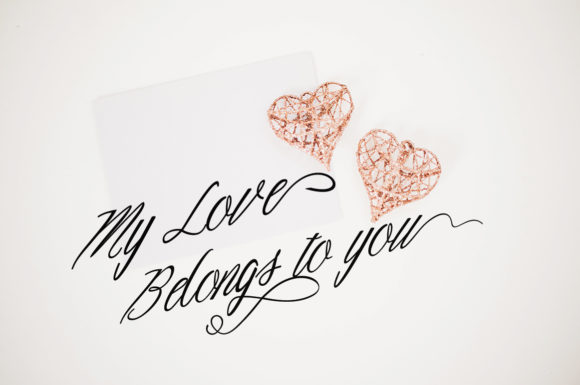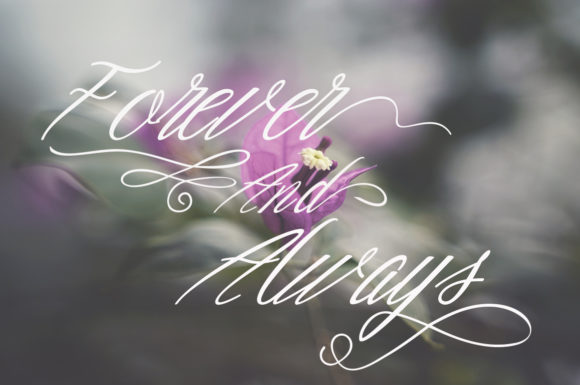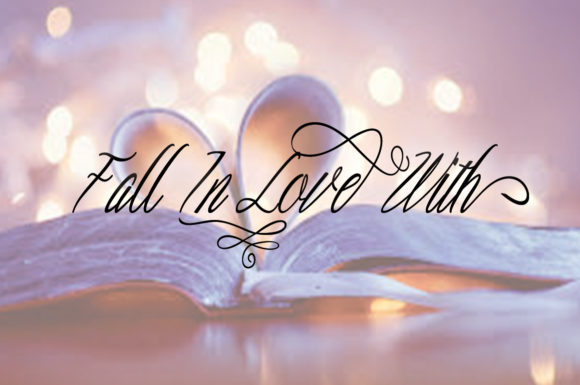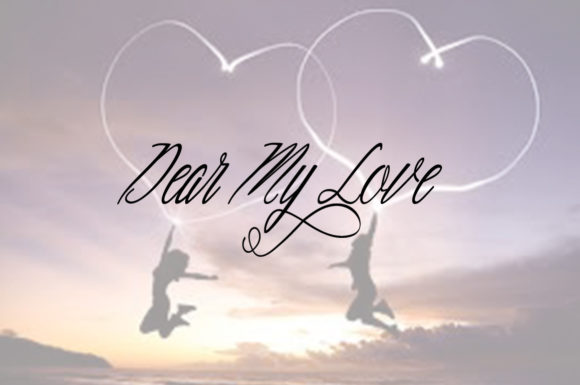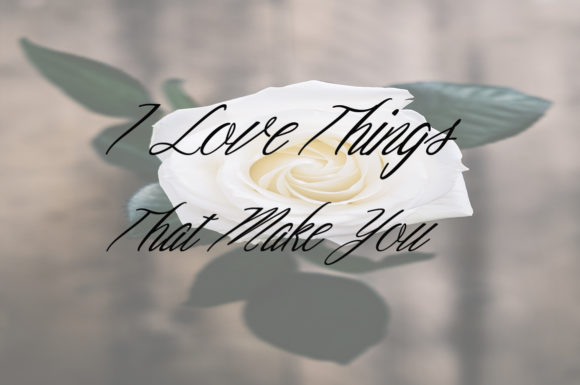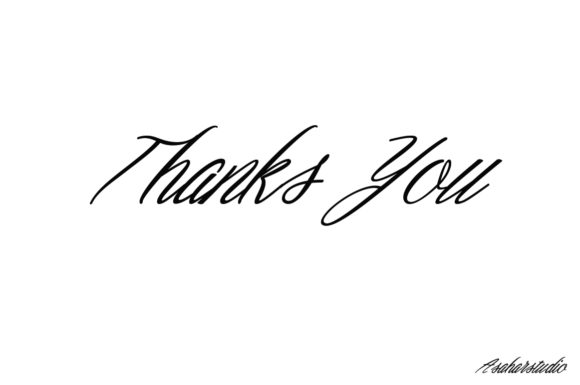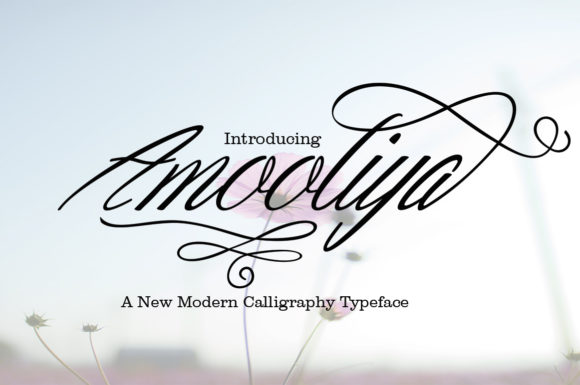
Amooliya Font: Elevate Your Designs with Elegant Modern Calligraphy
In the world of typography, few fonts manage to capture the essence of elegance and modernity as effectively as the Amooliya Font. This stunning brush script is a game-changer for designers and crafters looking to infuse their projects with a touch of femininity and sophistication. With its roots in modern calligraphy, Amooliya Font is versatile, charming, and perfect for a wide range of applications.
The Beauty of Amooliya Font
The Amooliya Font stands out for its fluid, brush-like strokes that bring a sense of movement and grace to any design. Its modern calligraphy style is not only visually appealing but also highly versatile, making it suitable for various design projects. Whether you’re working on headings, logos, wedding invitations, t-shirts, letterheads, signage, labels, news, posters, badges, or more, Amooliya Font is an excellent choice.
Key Features of Amooliya Font
- Feminine Touch: Amooliya Font adds a delicate, feminine flair to designs, making it perfect for projects that require a touch of elegance.
- Modern Calligraphy: With its modern calligraphy style, this font is ideal for contemporary designs that demand a fresh and stylish look.
- Versatility: From digital designs to print materials, Amooliya Font adapts seamlessly across various mediums.
- Easy to Read: Despite its elegant and cursive nature, Amooliya Font remains highly legible, ensuring your message is conveyed clearly.
Applications of Amooliya Font
The versatility of Amooliya Font makes it a valuable asset for designers and crafters. Here are some of the many ways you can use this beautiful font:
- Headings and Logos: Create stunning headings and logos that capture attention and convey your brand’s personality.
- Wedding Invitations: Add a touch of romance and sophistication to wedding invitations, save-the-date cards, and other wedding-related materials.
- T-Shirts and Merchandise: Design eye-catching t-shirts, hoodies, and other merchandise that stands out with Amooliya Font.
- Letterheads and Signage: Elevate your business’s professional image with elegant letterheads and signage.
- Labels and Packaging: Make your product labels and packaging more appealing and distinctive.
- Posters and Badges: Create engaging posters and badges for events, promotions, or awareness campaigns.
Tips for Using Amooliya Font Effectively
To make the most of Amooliya Font, consider the following tips:
- Pair with Complementary Fonts: Combine Amooliya Font with simple, sans-serif fonts for contrast and visual interest.
- Adjust Letter Spacing: For better readability, tweak the letter spacing, especially in longer texts.
- Experiment with Colors: While black and dark tones work well, don’t hesitate to experiment with colors that match your brand or design theme.
- Use for Highlighting: Utilize Amooliya Font to highlight key information or add decorative elements to your designs.
| Font Name | Amooliya Font |
| Author | AsaharStudio |
Amooliya Font is a remarkable addition to any designer’s toolkit. Its elegant modern calligraphy, versatility, and wide range of applications make it an ideal choice for projects that demand a touch of sophistication and femininity. Whether you’re a professional designer or a crafty DIY enthusiast, Amooliya Font is sure to inspire your creativity and elevate your designs to new heights.